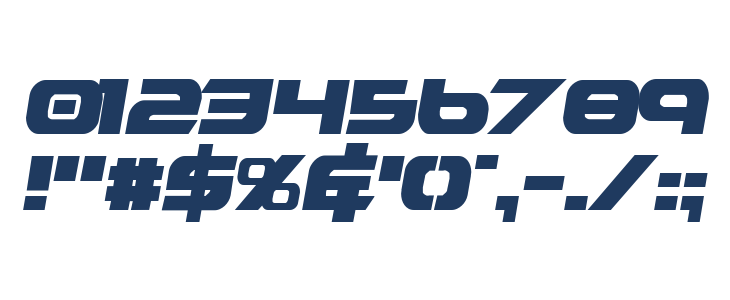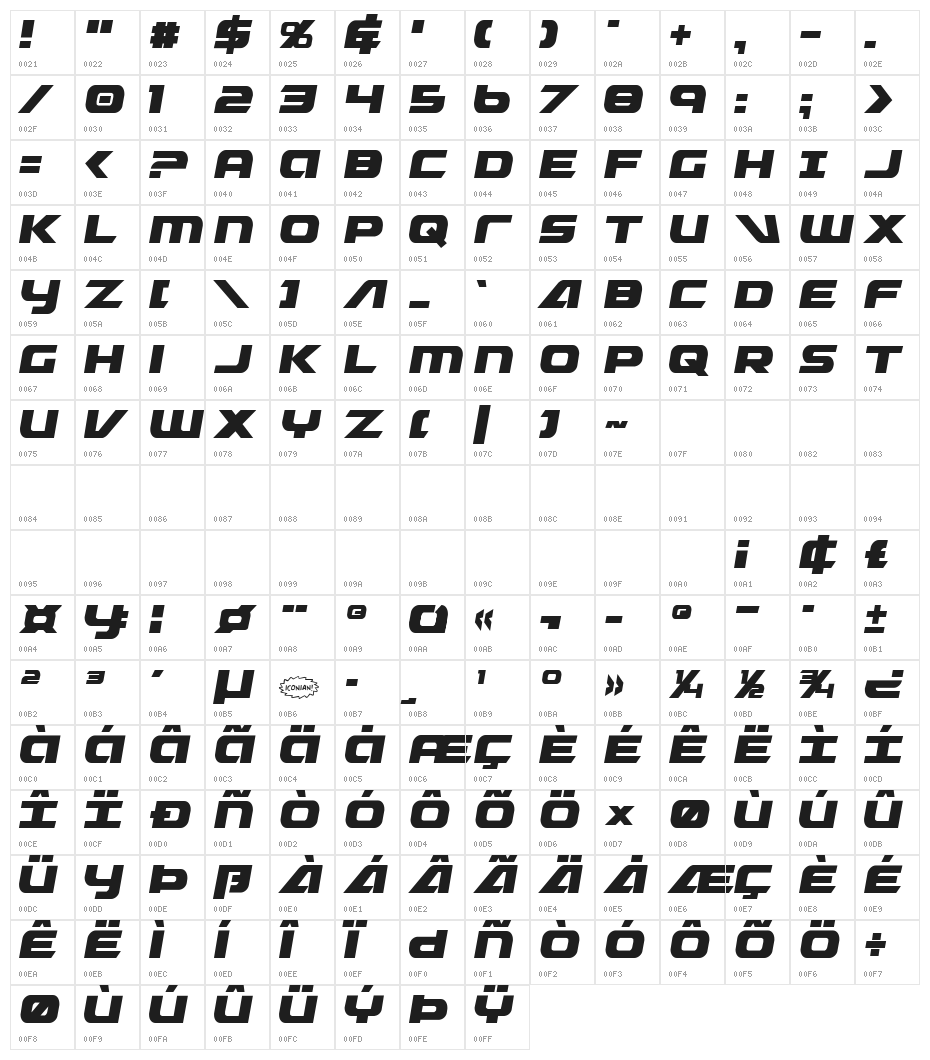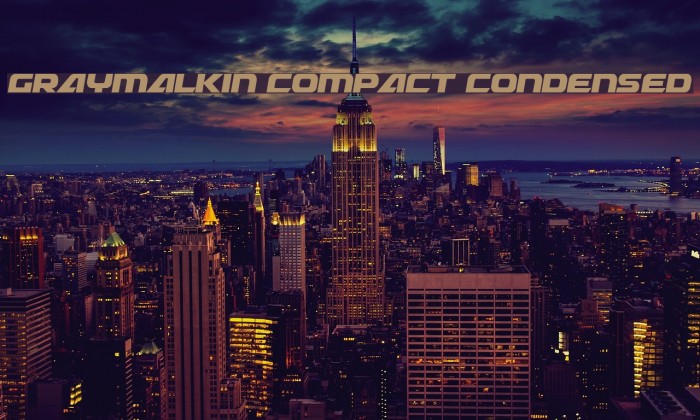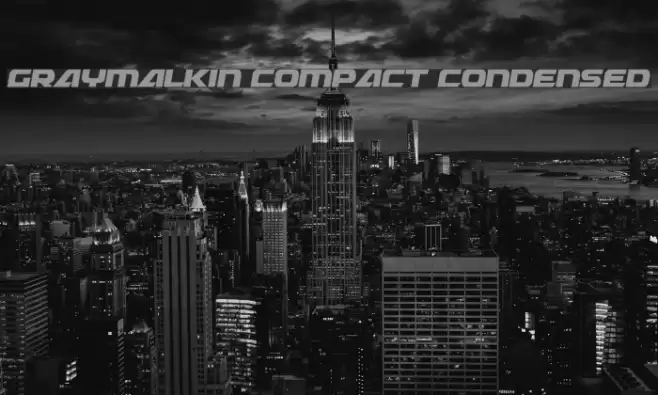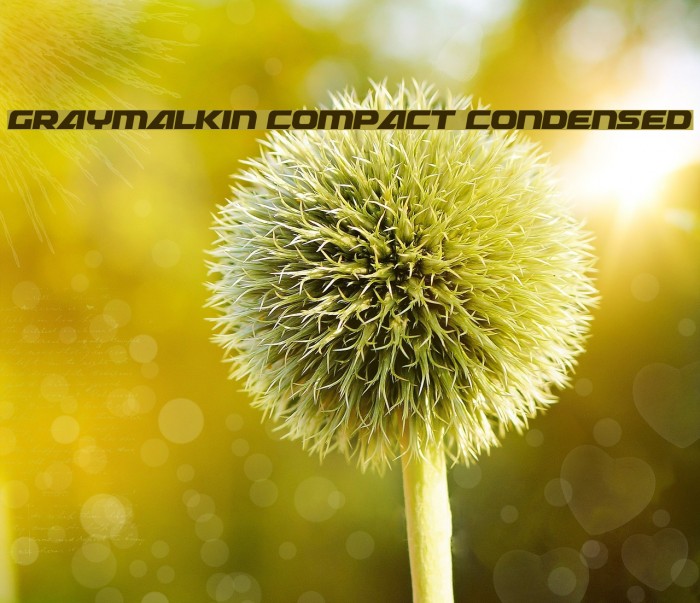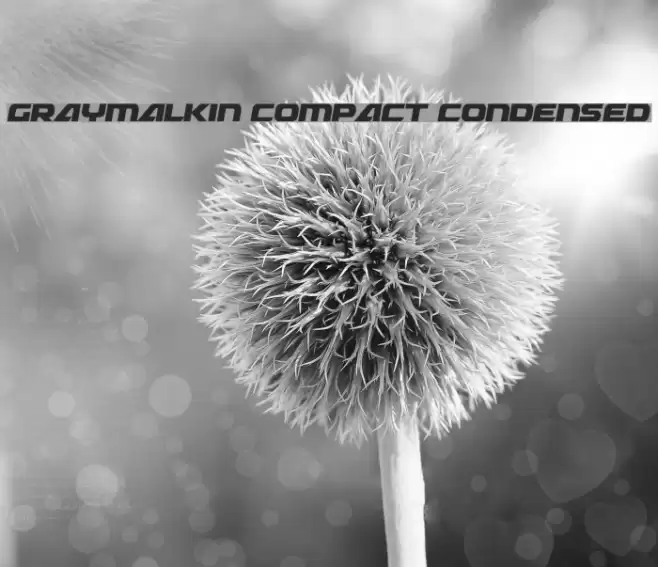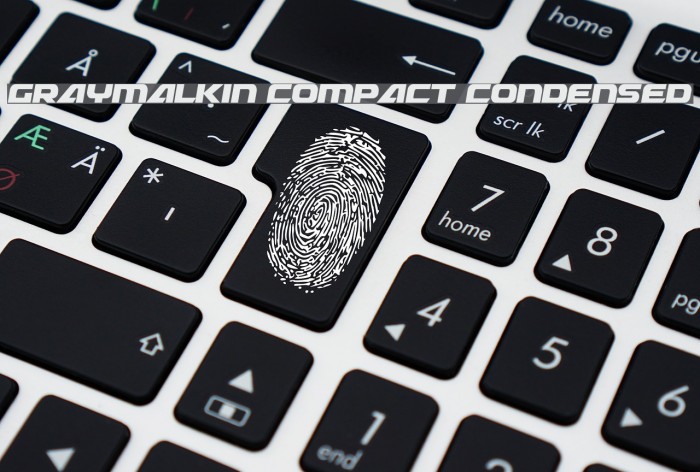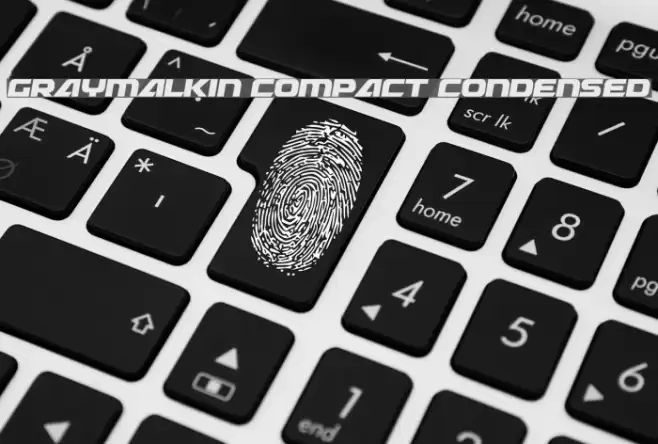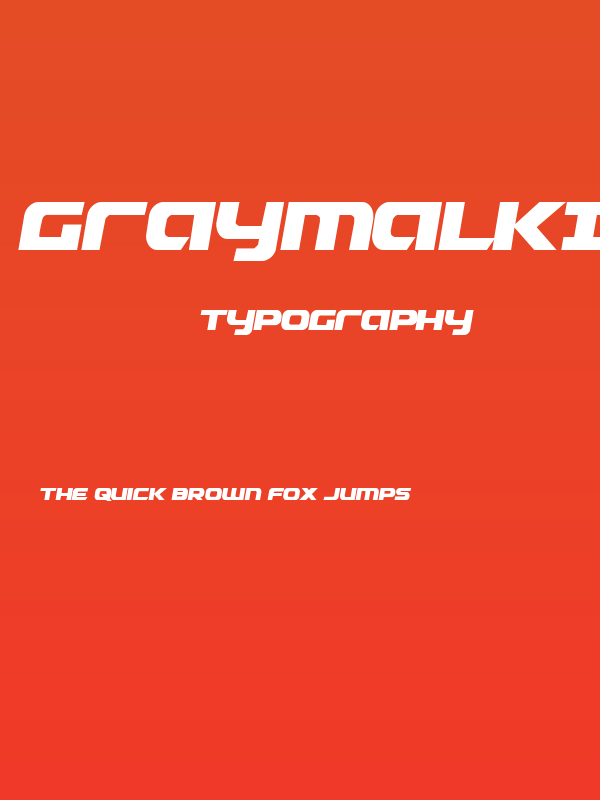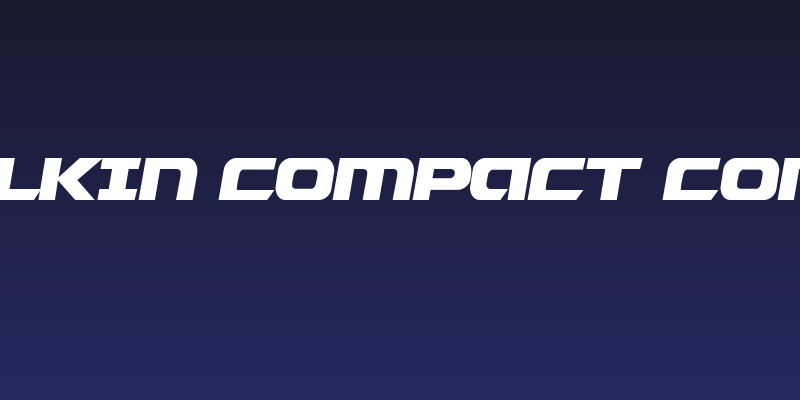
Graymalkin Compact Condensed Font
Graymalkin Compact Condensed Description
This font features a bold, futuristic design with a condensed structure, making it ideal for impactful headlines and modern branding. The characters are sharply angled with a distinct geometric style, giving a sense of speed and dynamism. The uppercase and lowercase letters maintain a consistent width, enhancing the uniformity of the text. Numbers and special characters are designed to match the boldness and angularity of the letters, ensuring a cohesive look across all text elements. The font's compact nature allows for efficient use of space, making it suitable for both digital and print media where space is at a premium.
| Proposed Projects | Ideal for modern branding, sports team logos, tech company websites, and dynamic posters. |